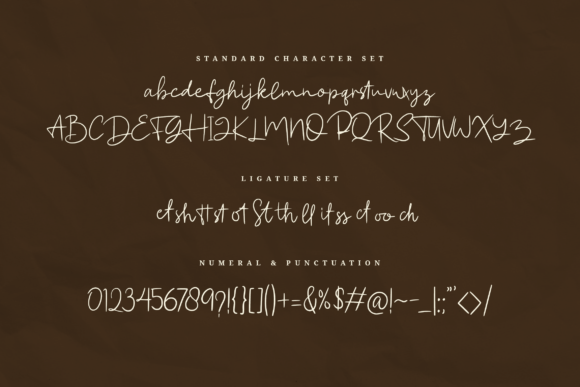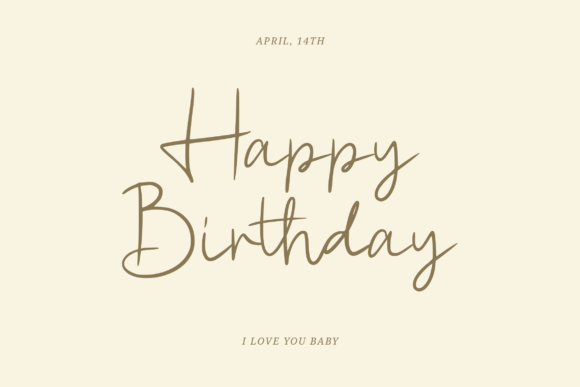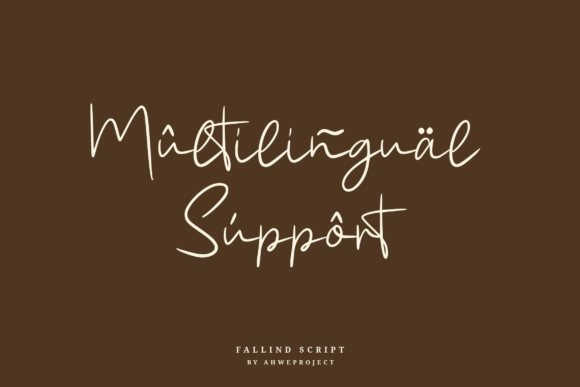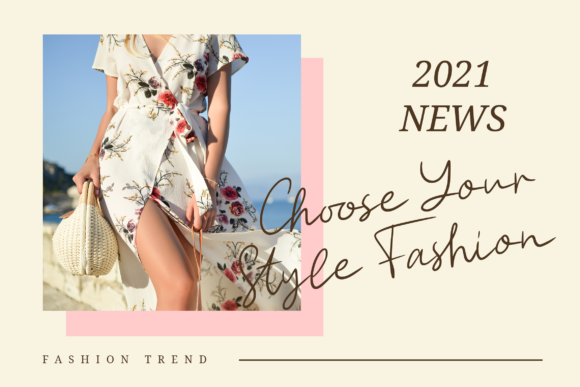
About Fallind Font
Fallind is a delicate and refined script font. It has a classy, elegant and modern look that can be used for logos, branding, invitations, stationery, wedding designs, social media posts, and much more!